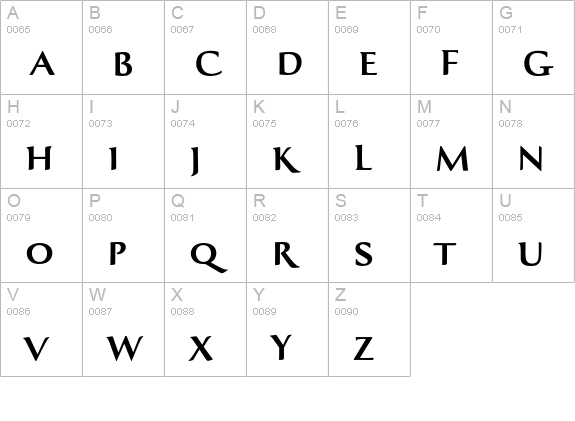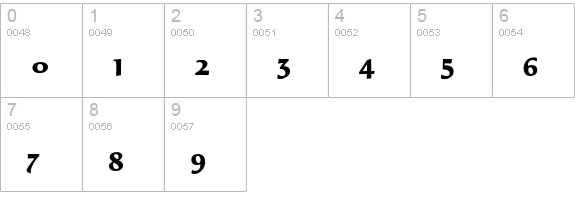
Oxalis Std Bold Font Details
Oxalis Std Bold is a strong, high-contrast variant in the Oxalis typeface family \xE2\x80\x94 well suited to headlines, attention-grabbing titles, and strong calls-to-action.
Oxalis Std Bold is a striking and bold typeface that exudes strength and modernity. With its clean lines and geometric shapes, this font is perfect for making a statement in any design project. Whether you're creating a poster, logo, or branding materials, Oxalis Std Bold will help your text stand out and grab attention. And the best part? Oxalis Std Bold is available for free download at FontsMarket.com. That's right, you can elevate your designs with this beautiful font without spending a penny. So why wait? Download Oxalis Std Bold now and add a touch of sophistication to your projects.